In this Issue : Introduction to Street°Type°Archive + Bombay Eats
This project explores the relationship between typography and culture. It began as a design experiment in Bombay—capturing old signage for typographic research—and has grown into an art photography archive that documents the evolving visual landscapes of cities. From the bustling streets of Bombay and Balasinor’s nearly forgotten Indo-Deco mansions to the vibrant markets of Madurai and the lively neighborhoods beyond India, my work examines the visual language of urban life. I share my findings through self-published zines, photo essays, and public lectures.
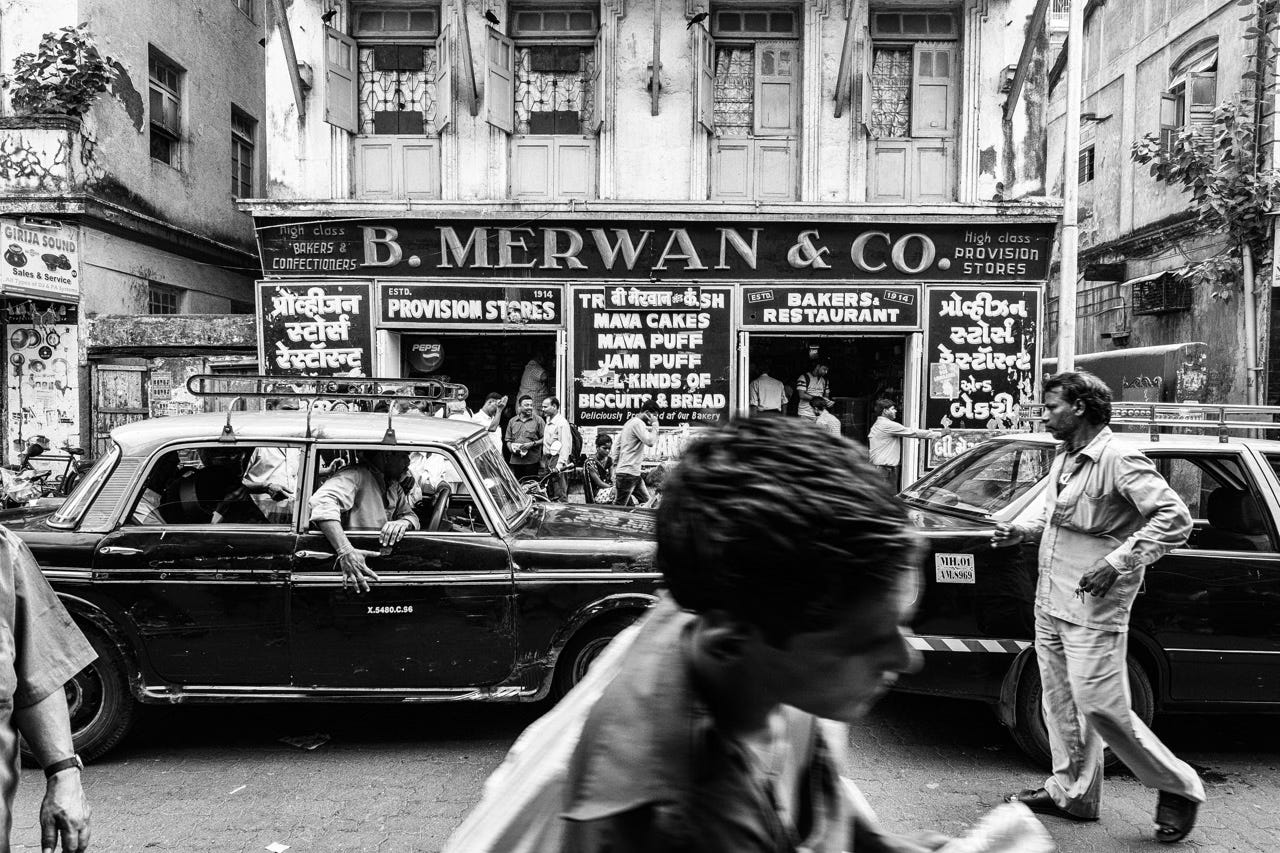
Zine Issue 1 – Bombay Eats
In Bombay Eats, I delve into Bombay's varied eateries, where food and typography combine to reveal the city’s distinct identity. The signage—from weathered, hand-painted boards to contemporary displays—showcases an eclectic mix of styles. Each typographic treatment, whether rendered in expressive regional scripts, hand-painted or classic Latin styles, captures a slice of Bombay’s rich cultural narrative.
One striking example is a modest eatery’s sign proclaiming “This is Lunch Time.” Its fusion of Latin lettering and regional calligraphy mirrors the city’s layered linguistic heritage and highlights how visual cues in everyday spaces articulate Bombay’s cosmopolitan character.
Bombay Eats is an invitation to explore the diverse typographic landscape of Bombay. While it offers only a glimpse of the city's vast visual richness, the zine invites you to appreciate the unique interplay of language, design, and local flavor found in its streets.
Here is the final set of photographs found in Bombay Eats.
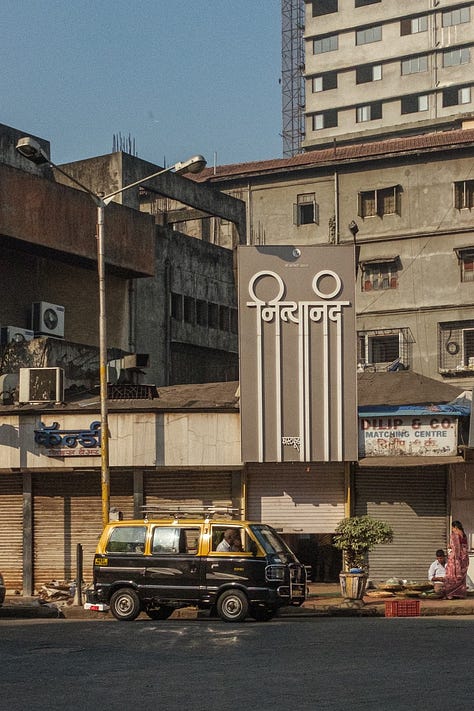
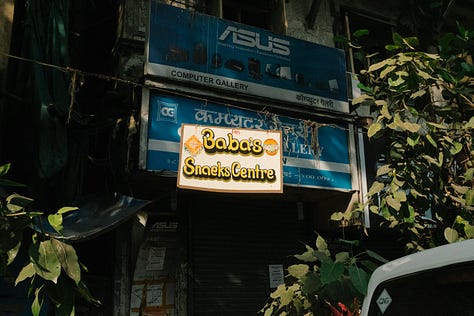
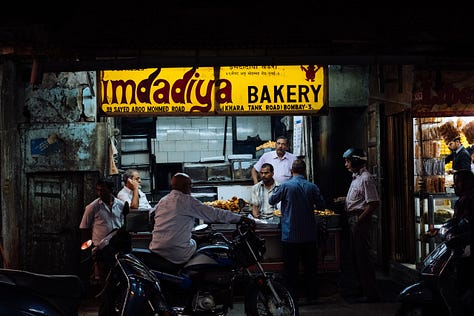
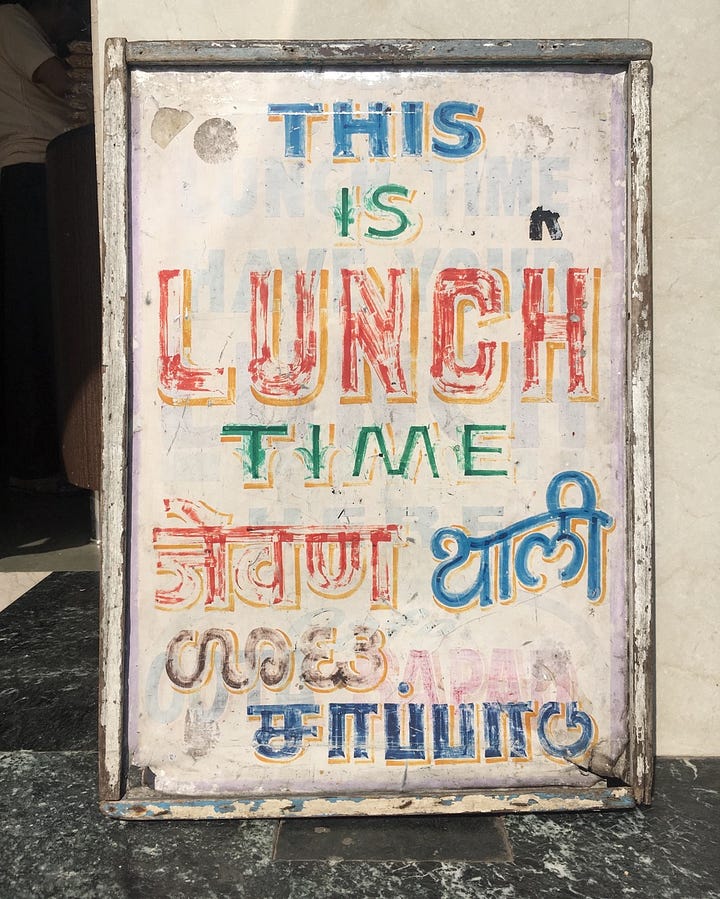
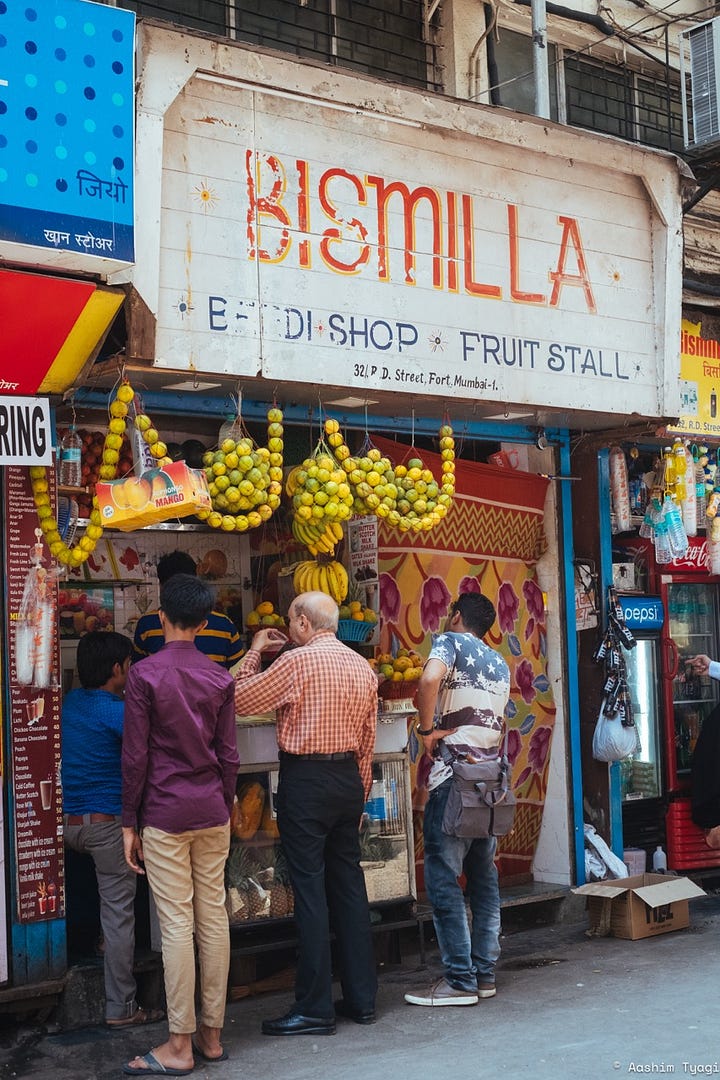
Here are a few more images that didn’t make the final printed issue.